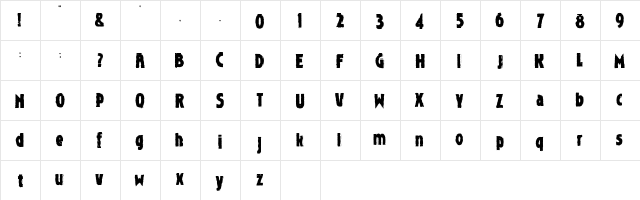
2Peas Samantha 2Peas Samantha Font Preview
2Peas Samantha 2Peas Samantha
2Peas Samantha 2Peas Samantha Font Details
Design Context for 2Peas Samantha Typeface
2Peas Samantha offers clean, dependable letterforms without strong stylistic allegiance, making it a practical choice for designers who need flexibility.